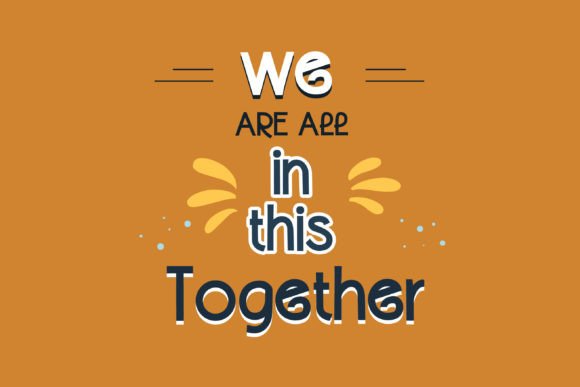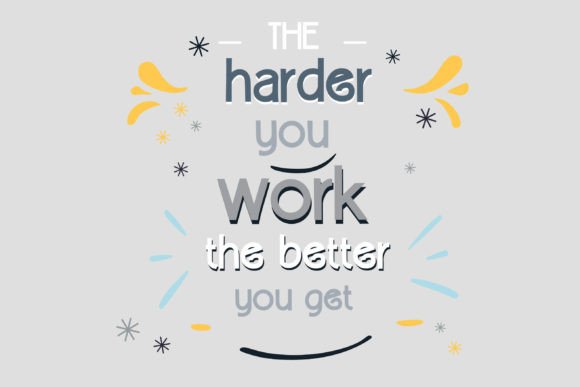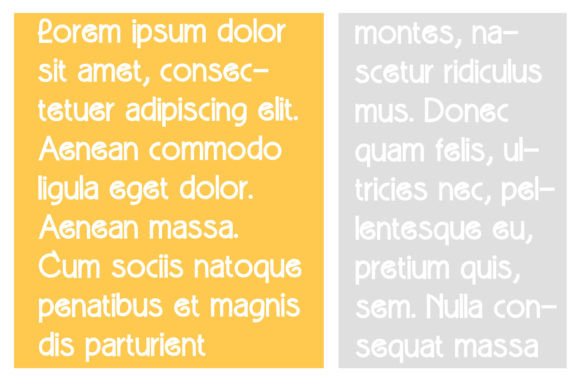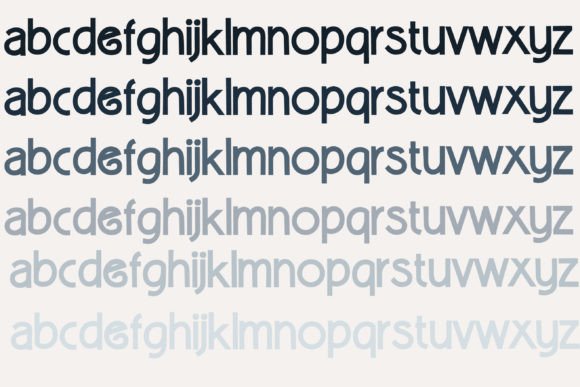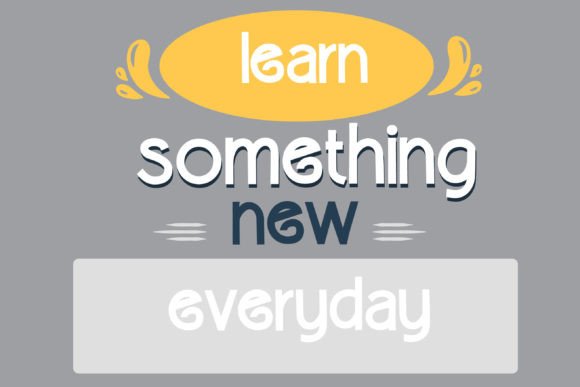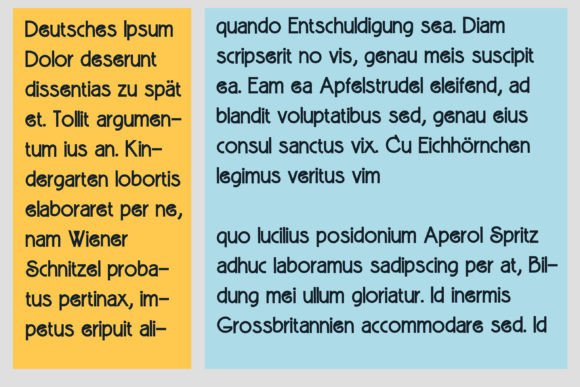
Introduction to Laundry Sans Font
Remember the moment when you stumbled upon the perfect design resource, and it changed the game for your creative project? For designers, it’s that moment of excitement and relief when all the pieces come together. It’s the moment you discover a high-quality font that perfectly captures the essence of your design vision.
That’s exactly what the Laundry Sans Font can offer. This hand-crafted sans serif font is not just another addition to your design library; it’s a unique and creative element that can elevate your designs to the next level. With its sporty curls and casual feel, Laundry Sans Font is perfect for projects that require a touch of personality and warmth.
Key Features of Laundry Sans Font
- High-quality design resource ideal for creative projects, offering a clean and modern aesthetic.
- Features a simple and elegant design, making it perfect for use in logos, branding, and other visual identity projects.
- Includes multiple weights and styles, allowing designers to customize the font to suit their specific needs.
- Designed to be highly legible, even at small font sizes, making it an excellent choice for digital and print projects.
Honest Review: Laundry Sans Font
I recently had the chance to work with the Laundry Sans Font in a creative project, and I’m excited to share my thoughts on this design resource.
- ✨ Clean and minimal design aesthetic, making it perfect for modern and sleek designs.
- ✨ High-quality font with smooth lines and a professional feel.
- ⚠️ Limited character set, which may not be ideal for projects requiring extensive text content.
- ⚠️ Not as versatile as some other fonts, making it better suited for specific design styles.
Overall, I’m impressed with the Laundry Sans Font’s clean design and high-quality feel. While it may have some limitations, it’s a great option for designers looking for a modern and sleek font for their creative projects. I’d definitely consider using it again in the future.
Laundry Sans Font
Laundry Sans Font is a high-quality design resource ideal for any creative project. This free download is perfect for designers and non-designers alike who want to add a touch of sophistication to their work.
Tips for Getting the Most Out of Laundry Sans Font
For the best results, use Laundry Sans Font on a transparent background to really make your design pop. Experiment with different font sizes and colors to find the perfect combination for your project.
Laundry Sans Font is perfect for:
Alternatives to Laundry Sans Font
Open Sans is a high quality, free font that is ideal for creative projects requiring a clean and modern design. It features a transparent background and a wide range of weights and styles to suit various design needs.
Compared to Laundry Sans Font, Open Sans has a more modern and sleek appearance, making it suitable for a wide range of design applications, including digital and print media.
Lato is a free, high quality font that is perfect for designers seeking a versatile and elegant design resource. It features a clean and modern design, making it ideal for creative projects requiring a sophisticated look.
When compared to Laundry Sans Font, Lato has a more refined and polished appearance, making it suitable for high-end design projects and applications requiring a professional touch.
Montserrat is a free, high quality font that is ideal for designers seeking a modern and urban design resource. It features a clean and geometric design, making it perfect for creative projects requiring a bold and edgy look.
Compared to Laundry Sans Font, Montserrat has a more dramatic and edgy appearance, making it suitable for design applications requiring a strong and attention-grabbing visual identity.